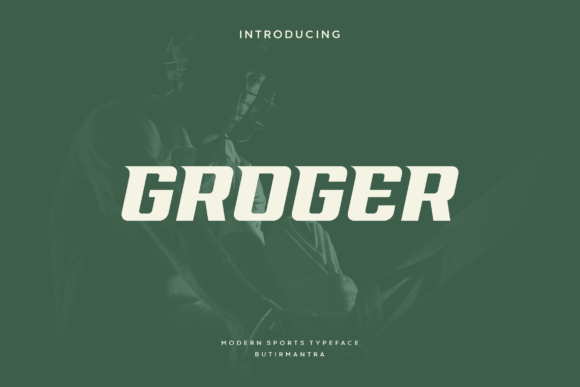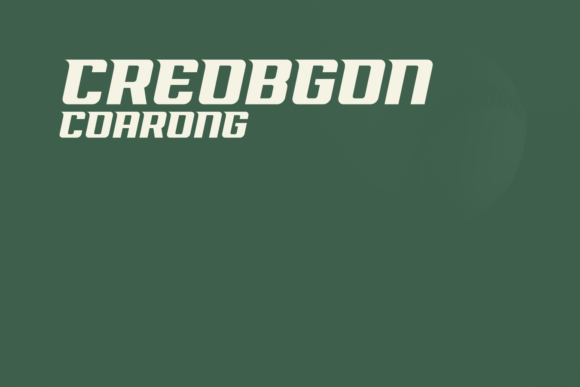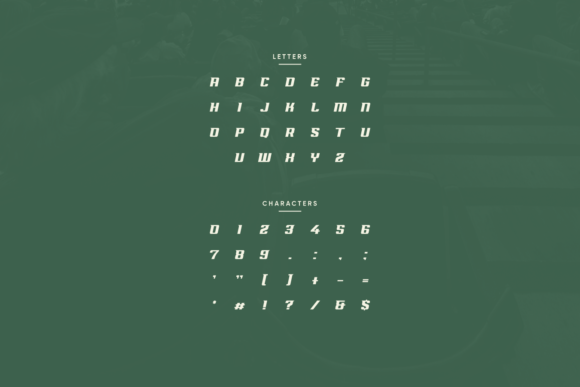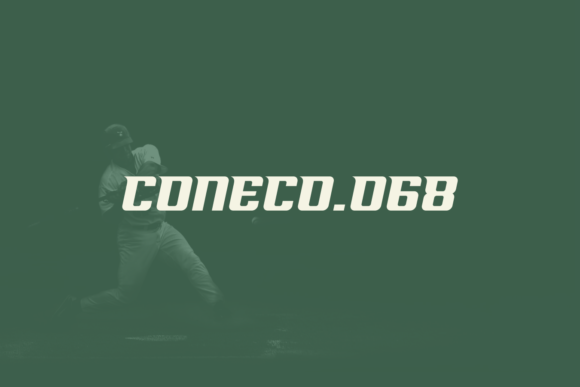
Groger Font: A Bold Display Font for Sport Logos & Poster Designs
About the Groger Font
The Groger Font offers a perfect balance of form and function for your design needs. Groger is modern sport font, comes with all-caps speaks speed, racing, and roaring machine with the highest RPM you can get on asphalt. With strong sharp corners and a solid shape with pointy corners to make it powerful and go whoops, it will make this font emphasize the racing spirit in your designs. Perfectly suited for sports themes, logos, headlines, posters, movie titles, magazines, and various other types of designs that are required for a shade standout and strong.
Groger’s aggressive geometry and all-caps structure excel in headlines, logos, and short, impactful displays. It’s ideal for projects needing a bold, high-energy feel—think motorsport branding, action movie posters, or edgy product packaging. Avoid using Groger for body text or UI elements; its sharp angles and condensed forms hinder readability in extended use.
Groger projects a powerful, rebellious personality. Its strong, angular forms convey speed and dynamism, making it a perfect choice for brands emphasizing performance, competition, or a cutting-edge aesthetic.